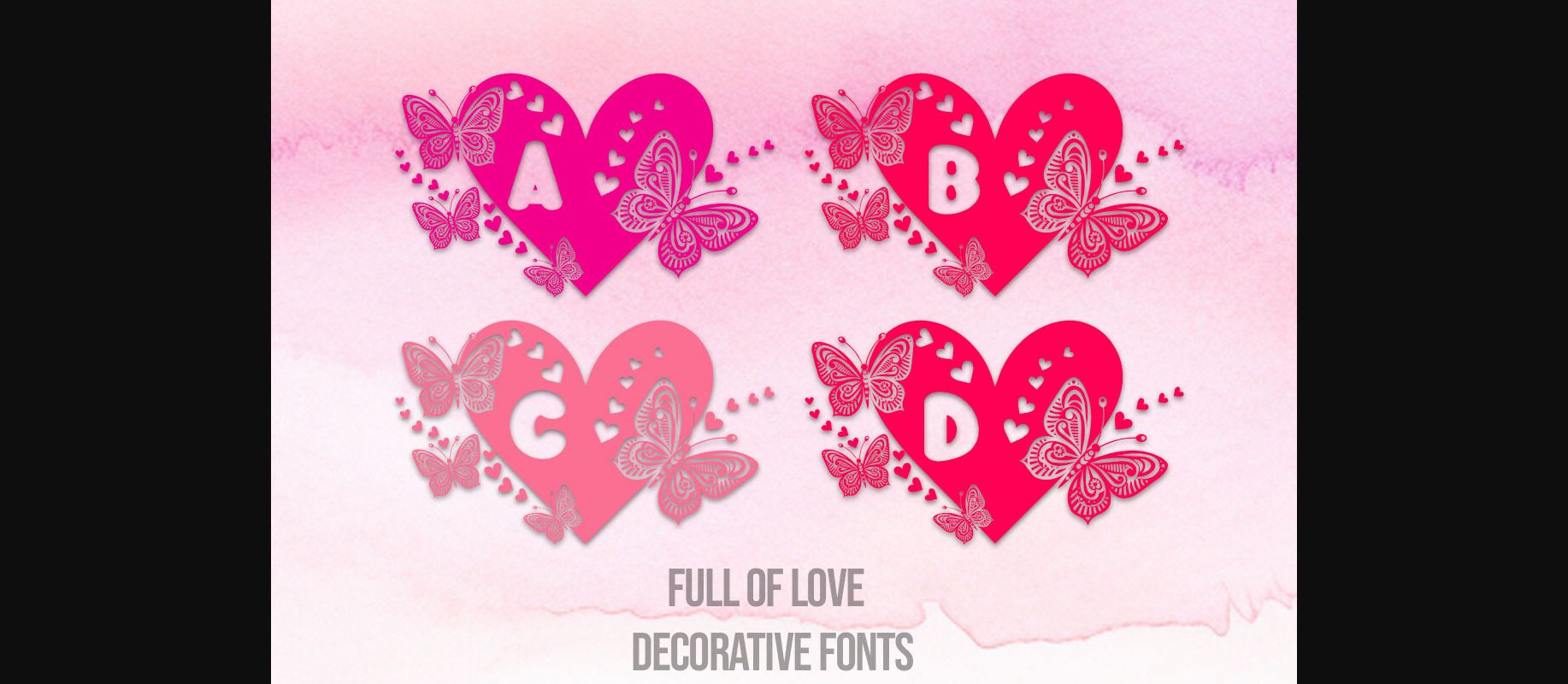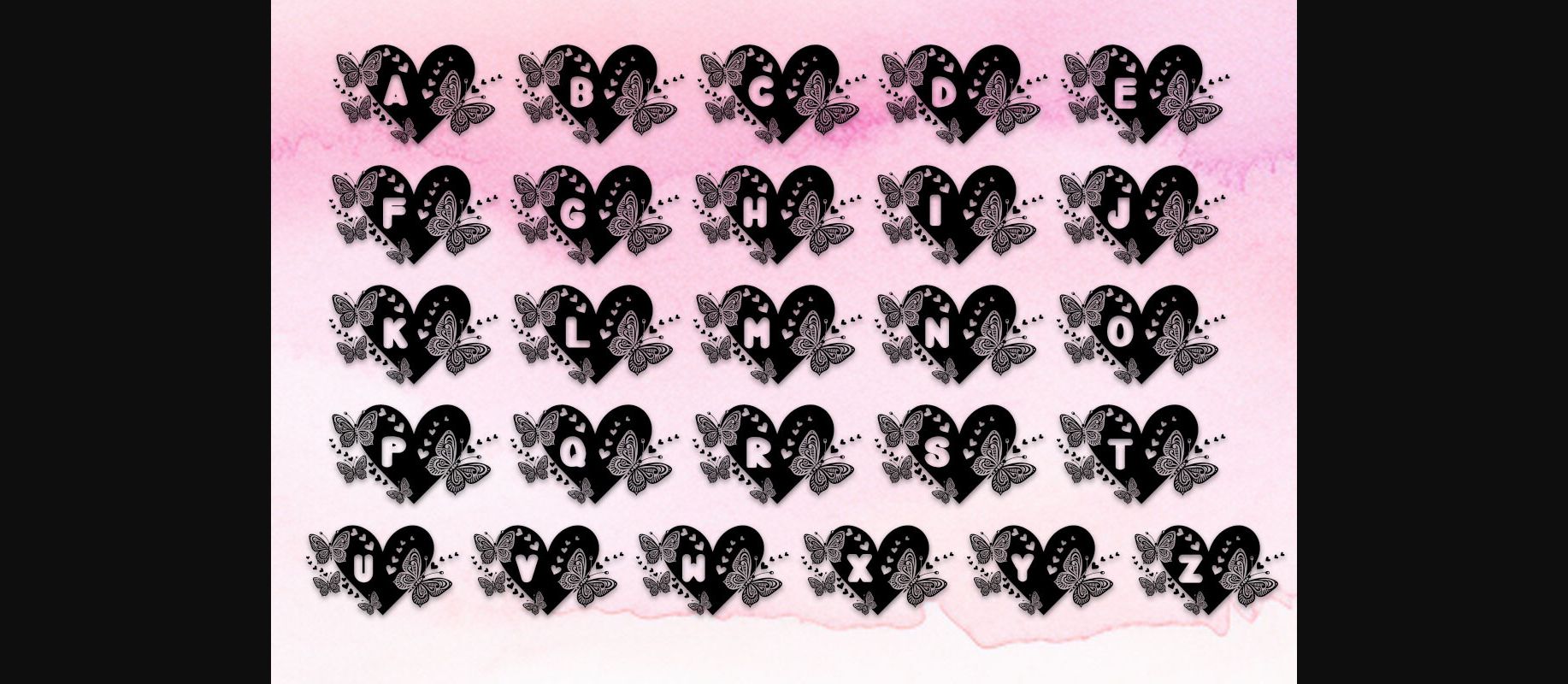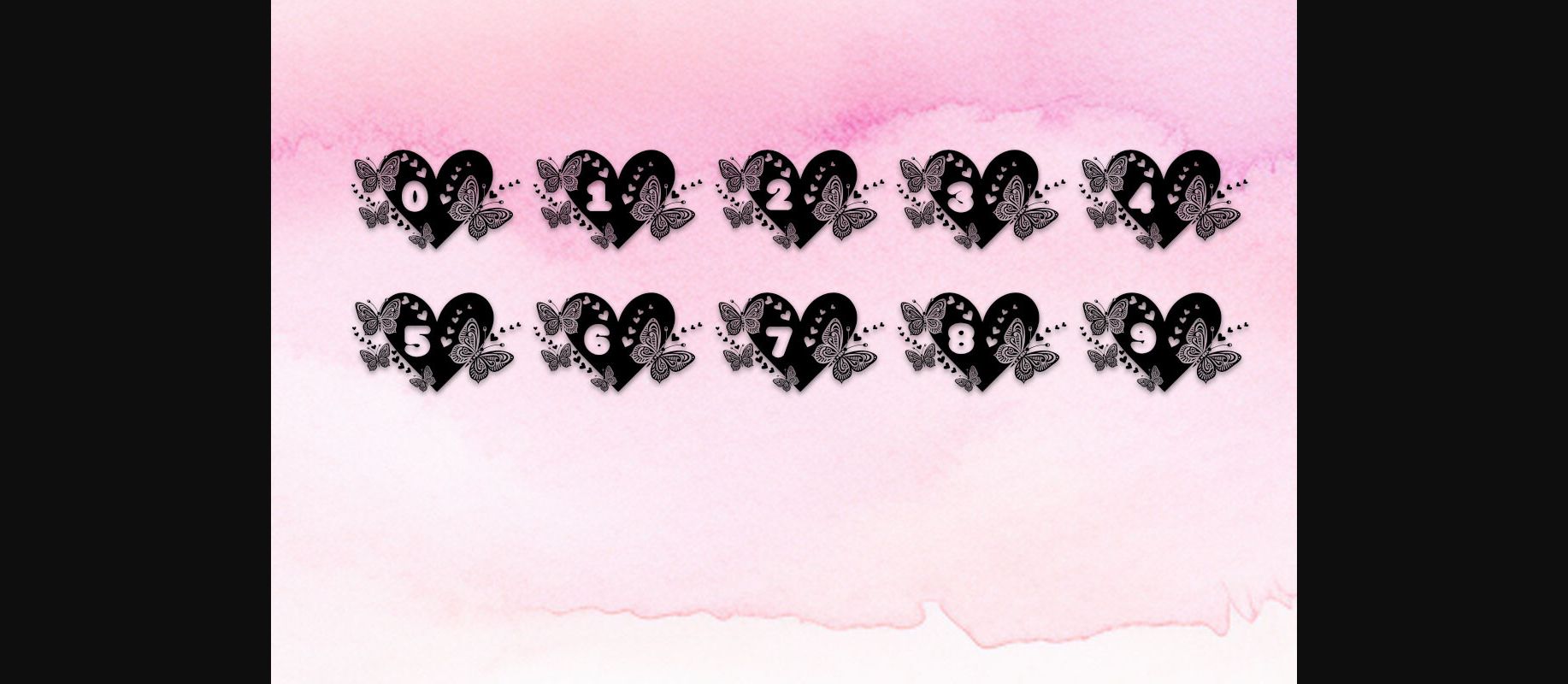
Full of Love Font
About Full of Love Font
Introducing “Full of Love Fonts,” a captivating set comprising 36 characters, including 26 uppercase letters and numbers 0-9. These fonts are meticulously designed with intricate heart symbols and enchanting butterfly patterns, infusing your designs with a charming touch of romance and grace. Perfect for crafting expressive messages, romantic designs, or any project seeking to embrace love and elegance through typography.